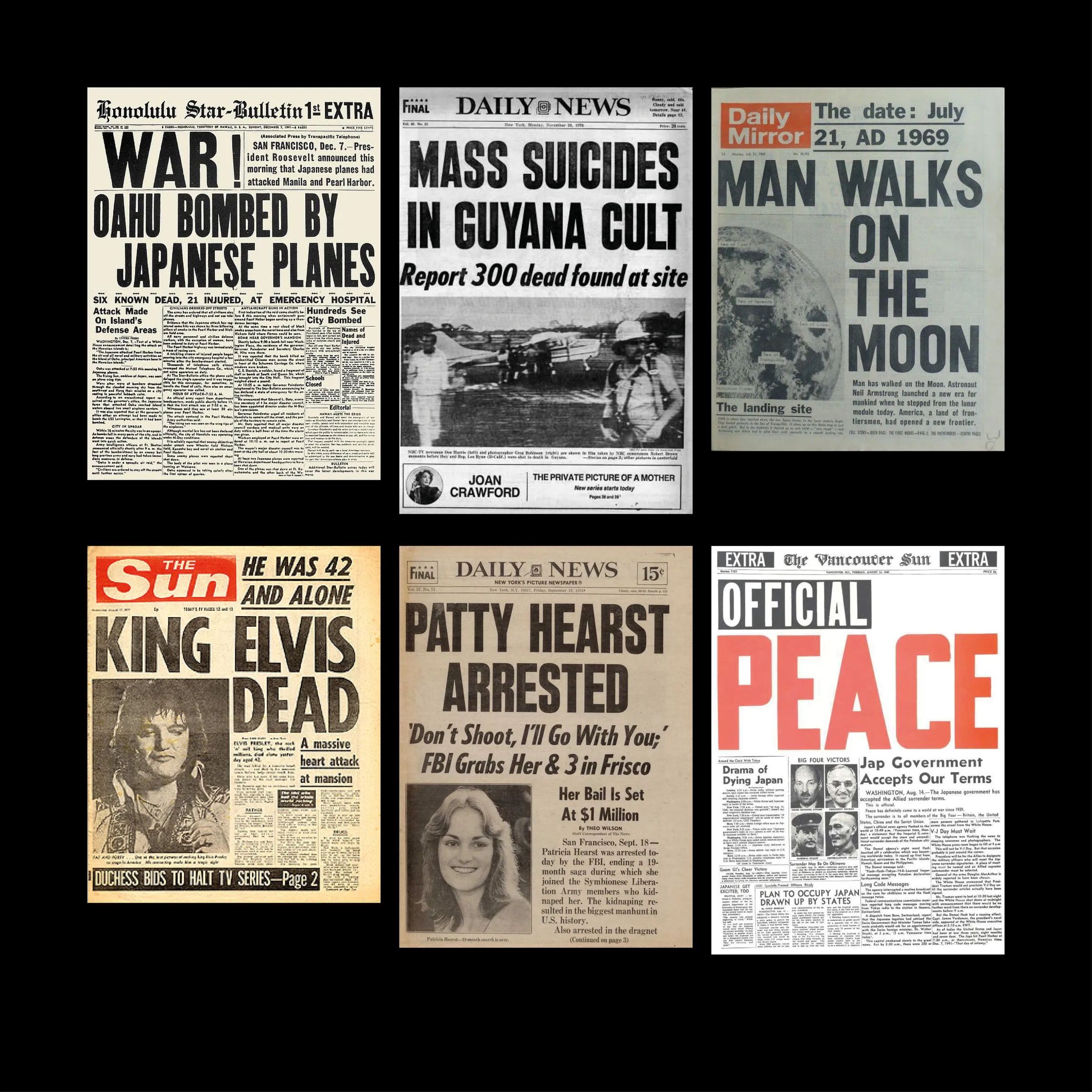
Buzz is a typeface designed primarily for large-scale use, intended for bold andimpactful headlines. Its shapes draws inspiration from various archetypal Americanwood typefaces, particularly present on the mid-20th-century newspapers frontpages. The initial concept was to capture the imperfect materiality of letters carvedfrom wood with an overall sense of handcrafted production rather than digitalprecision. In this spirit, Buzz deliberately embraces missing or incorrect opticalcorrections, creating subtle variations in weight. A controlled flaw that gives thetypeface a slightly unsettling, distinctive character. Despite its very heavy weight,Buzz maintains a friendly tone thanks to its soft, rounded curves. This contrast givesthe typeface a strong visual presence while retaining a playful setting.